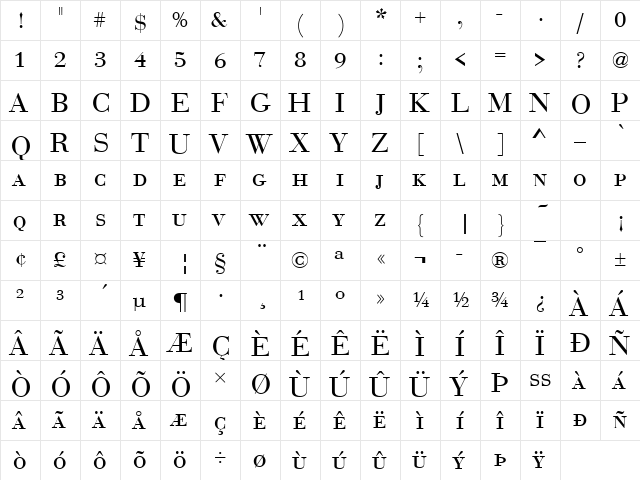
EuroBodDCDReg Regular Font Preview
EuroBodDCDReg Regular
Design Context for EuroBodDCDReg Typeface
EuroBodDCDReg takes a measured approach to typography — its balanced proportions and neutral character make it a reliable workhorse for both digital and print work.